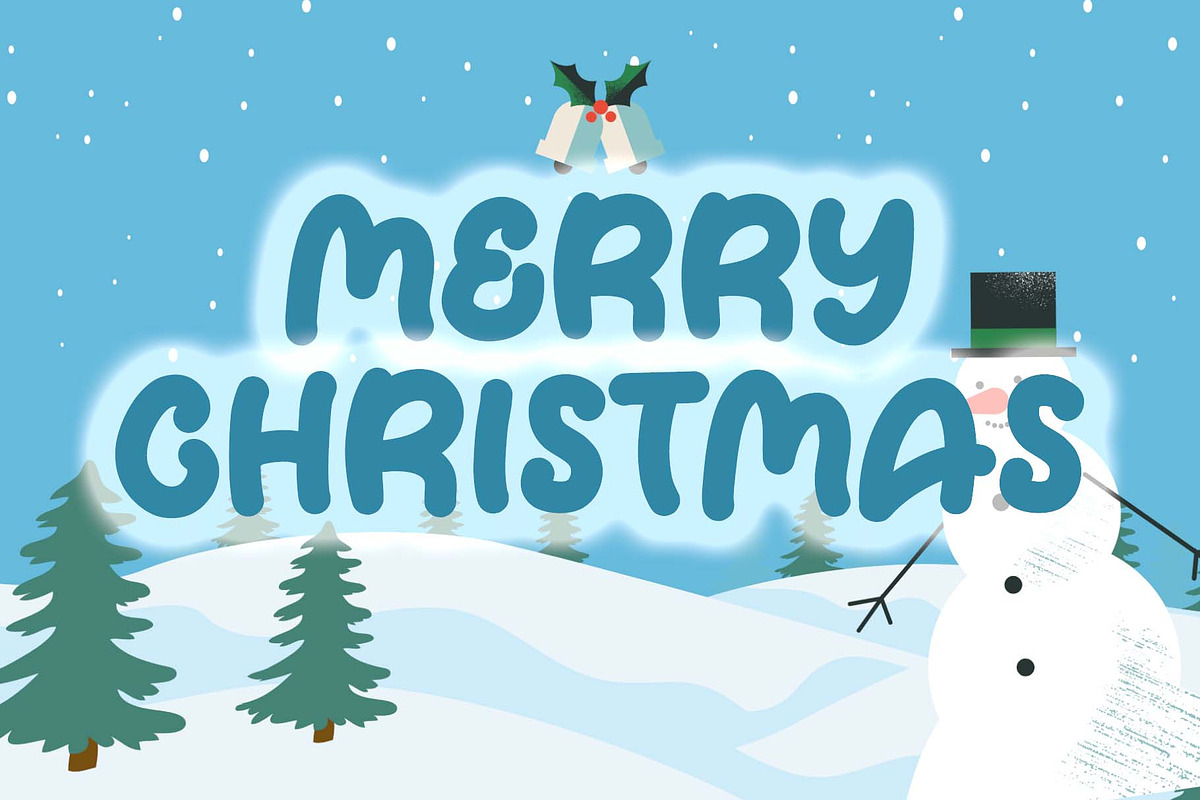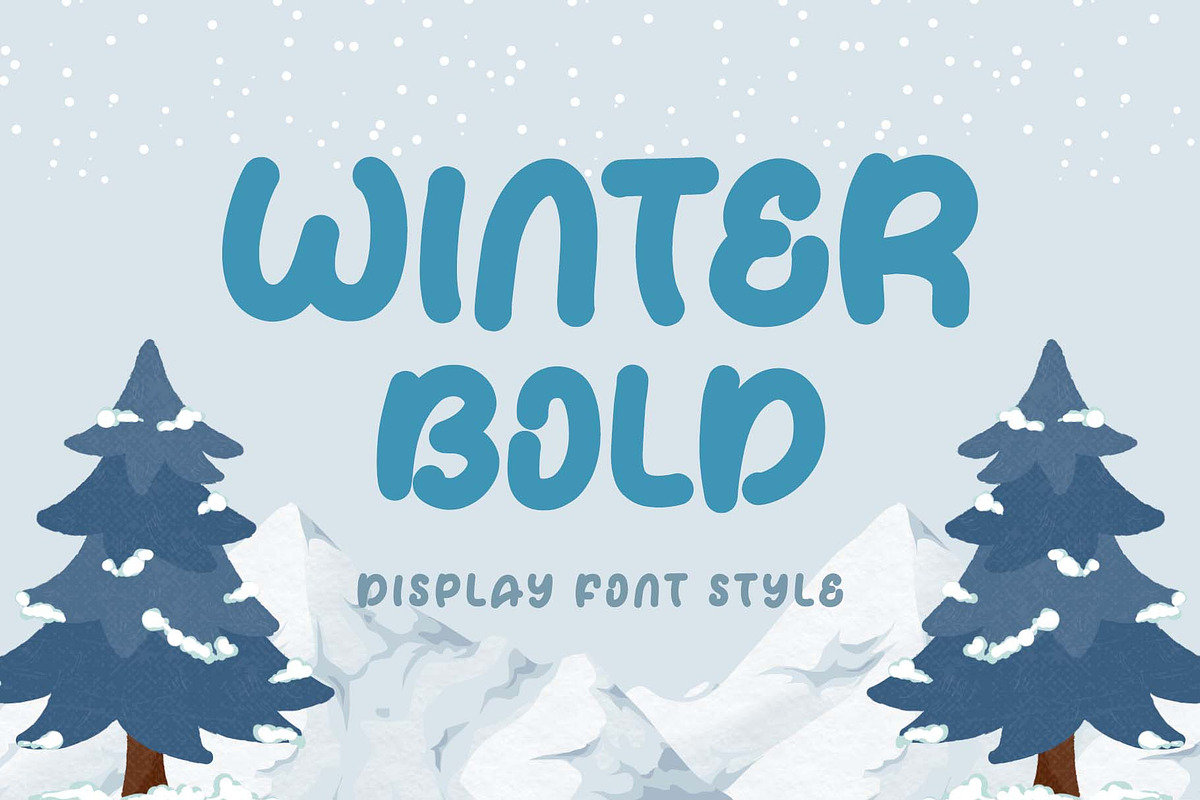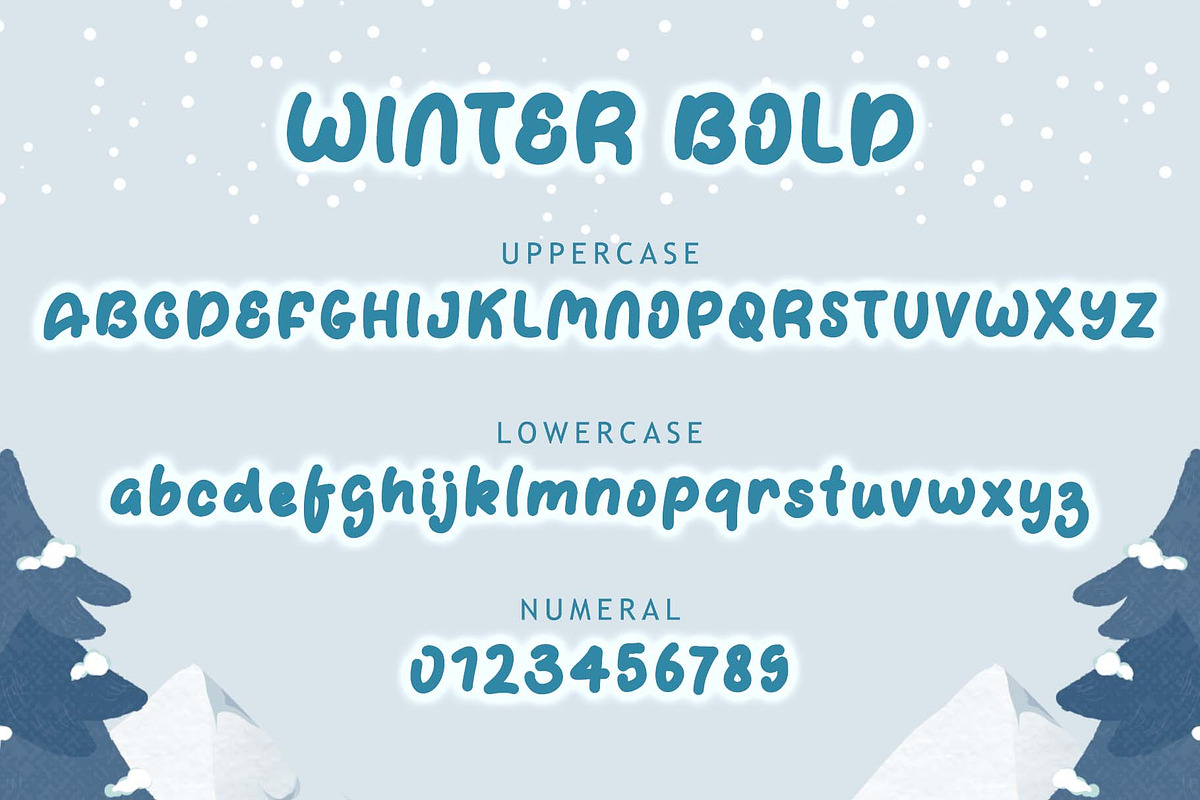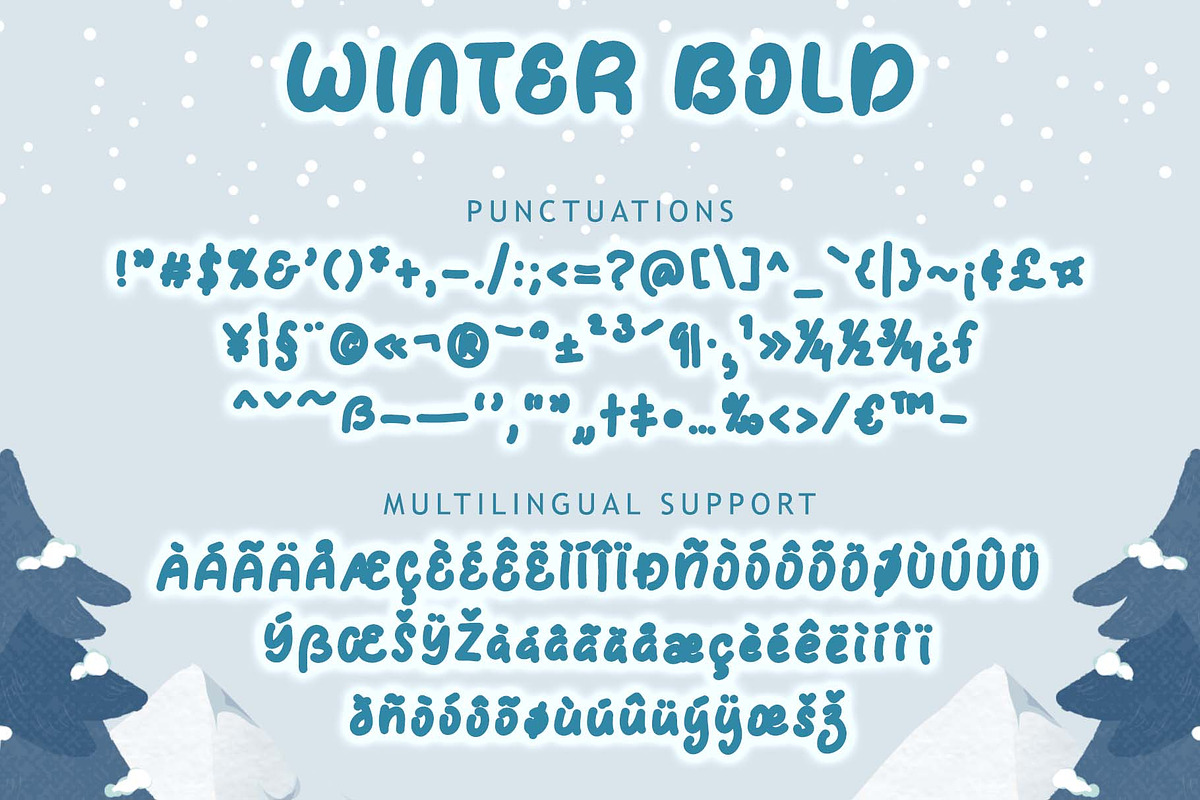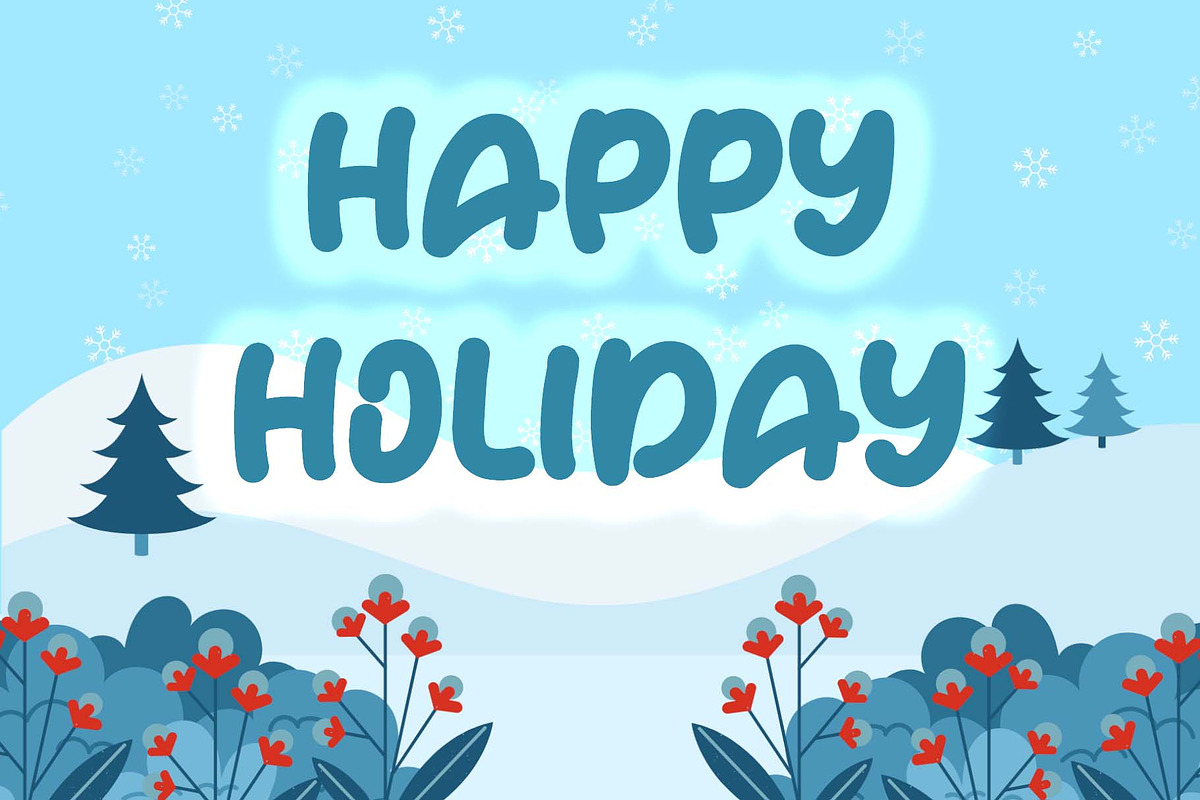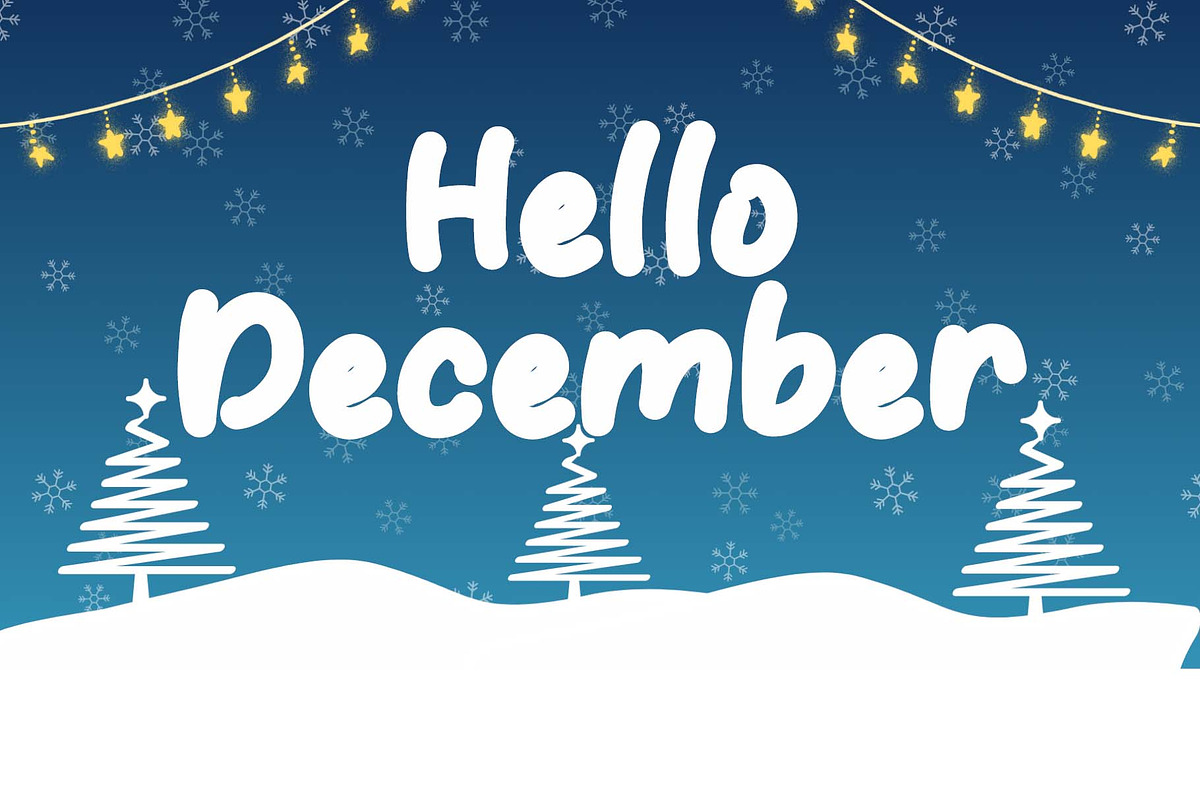
Winter Bold
“Winter Bold” is a cute display font. It comes with capital letters, lowercase letters, numbers, punctuation, and multilingual support. It is perfect for use on Christmas, winter, holidays, banners, posters, prints, banners, posters, logos, comics, cartoons, Easter, back to school, and more.